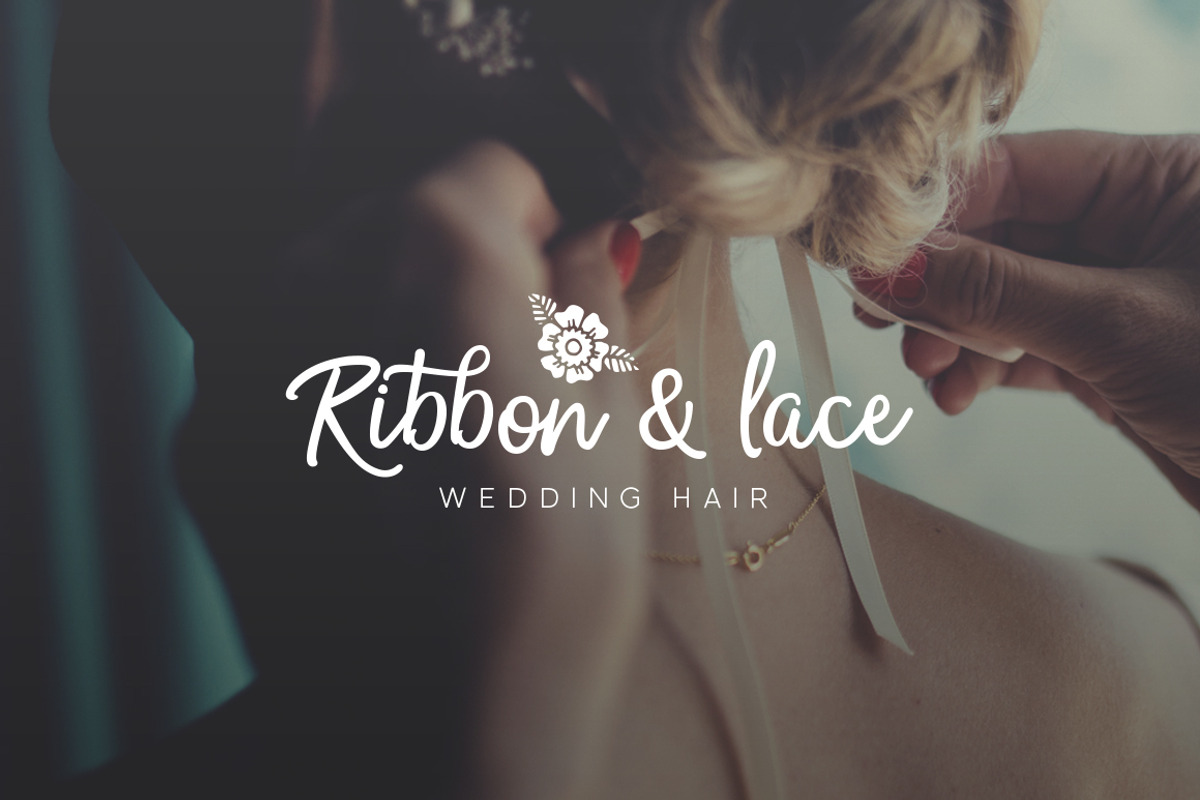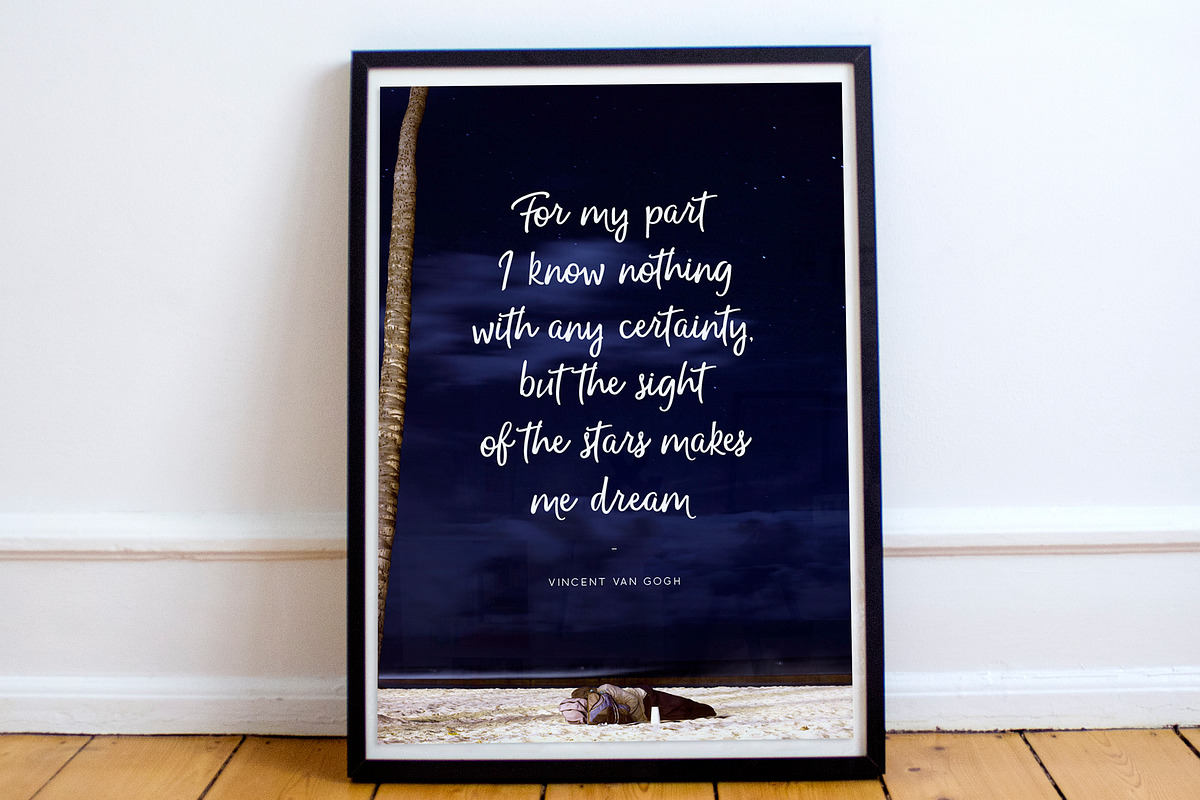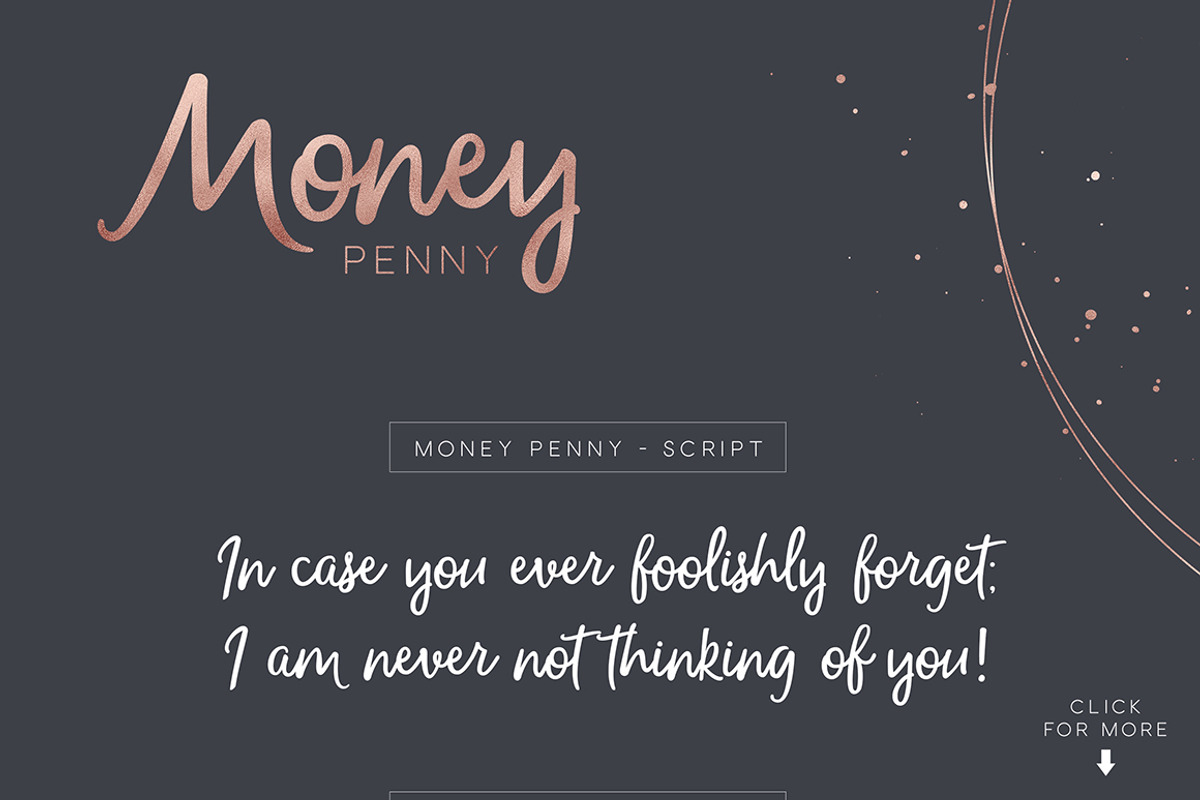
Money Penny Font
Money Penny is a perfectly paired font duet of free-flowing brush script and a sophisticated sans-serif. Take the stress out of finding fonts that match together with a set that already does and focus on what you want to do which is designing beauty work.
Money Penny Script – A hand written brush script, first drawn on paper and then remastered on the computer to give a smooth free flowing brush script, that looks perfect over the top of photos or as a classy logo.
Money Penny Sans – A super clean, simple and elegant sans-serif font that works producing stand alone sophisticated typographical pieces or in combination with the script font.